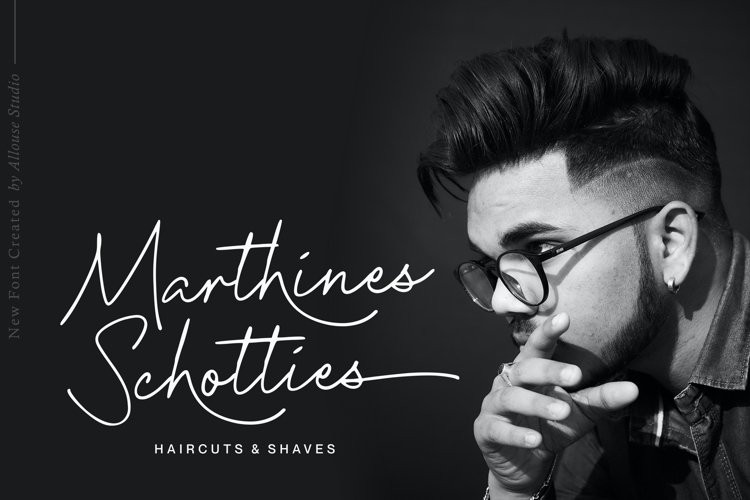
Skeptisgraph Font
Skeptisgraph FontSkeptisgraph is A Casual Signature Font
Skeptisgraph is perfect for product packaging, branding project, megazine, social media, wedding, or just used to express words above the background.